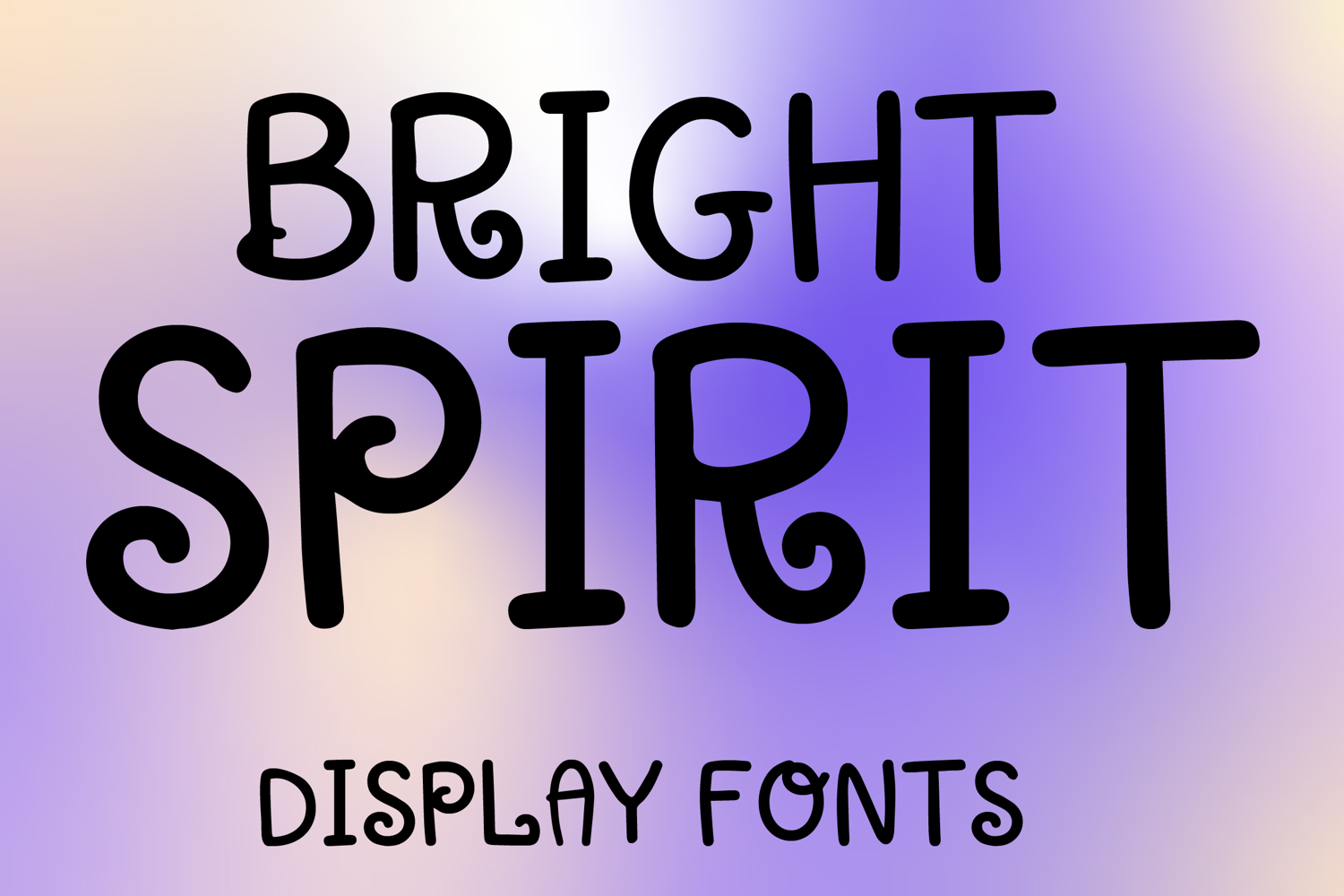
BRIGHT SPIRIT
BRIGHT SPIRIT is a playful display font with a whimsical handcrafted style and cheerful artistic charm. Its uppercase letterforms feature rounded strokes, quirky curves, and subtle spiral details that create a friendly, lively, and eye-catching look. Designed with uppercase letters A–Z and numbers 0–9, BRIGHT SPIRIT is perfect for branding, posters, packaging, invitations, logos, social media graphics, and creative projects that need a joyful and memorable statement.